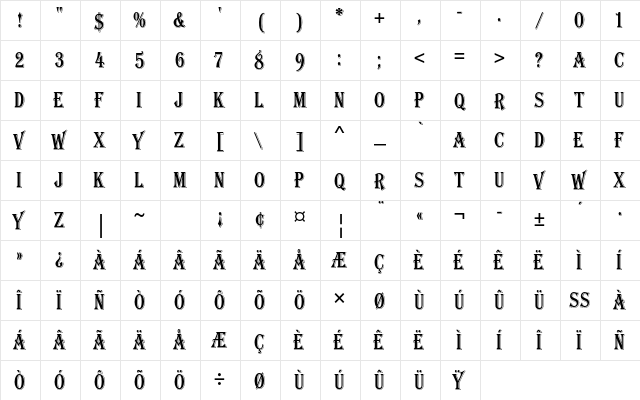
Algerian Condensed Std Regular
| Designer | Phillip Kelly |
Design Context for Algerian Condensed Std Typeface
Algerian Condensed Std takes a measured approach to typography — its balanced proportions and neutral character make it a reliable workhorse for both digital and print work. The condensed width makes it efficient for tight spaces without sacrificing legibility.
Pro Tip: Use Algerian Condensed Std in both headline and body roles to test its range before committing to a single application.